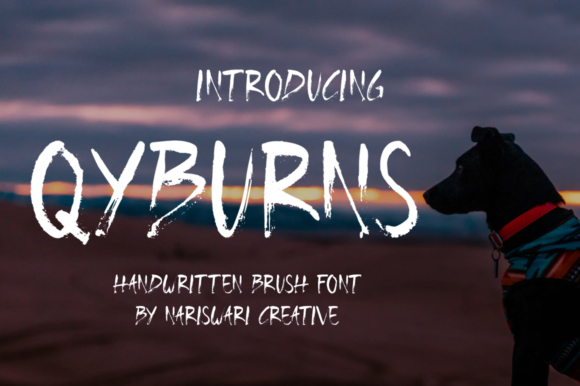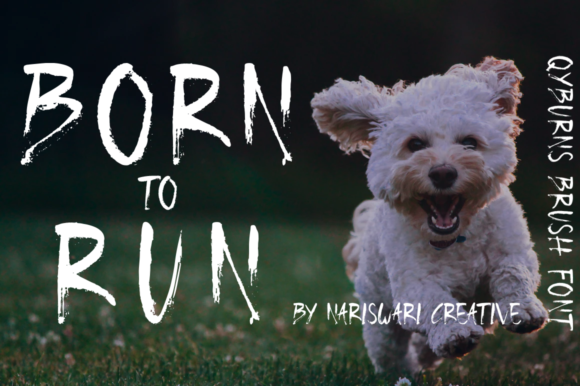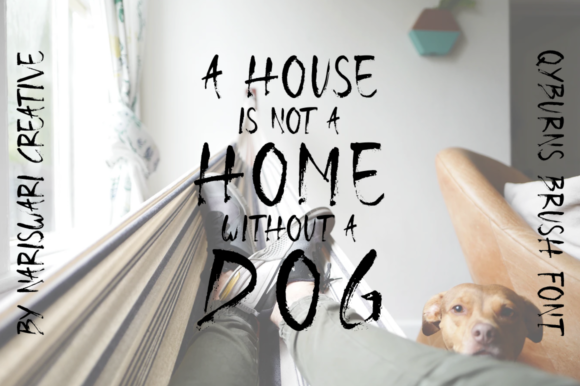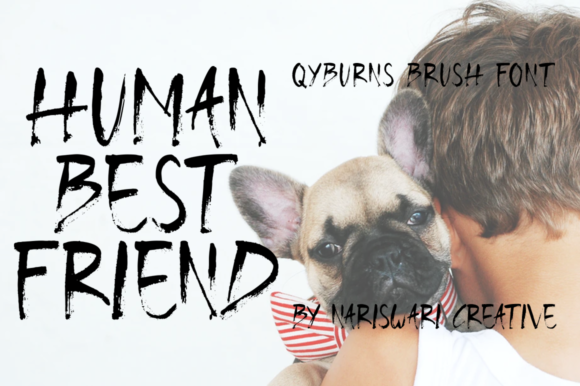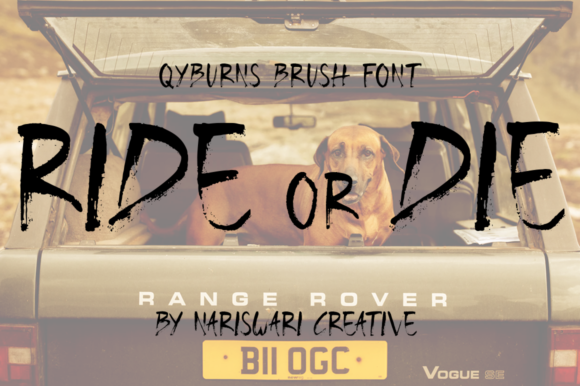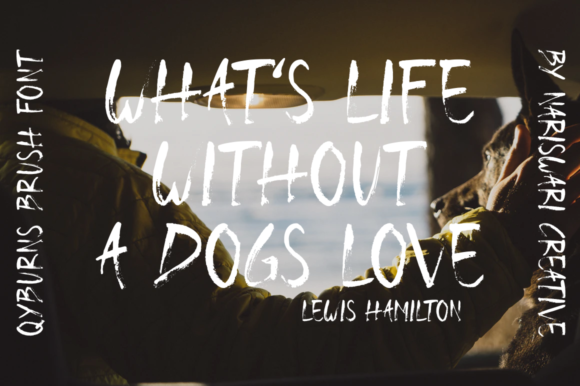
Qyburns Font
About Qyburns Font
Qyburns is a unique and interesting handwritten font. Created with the help of a brush pen, this font looks incredibly adept on a wide variety of contexts!